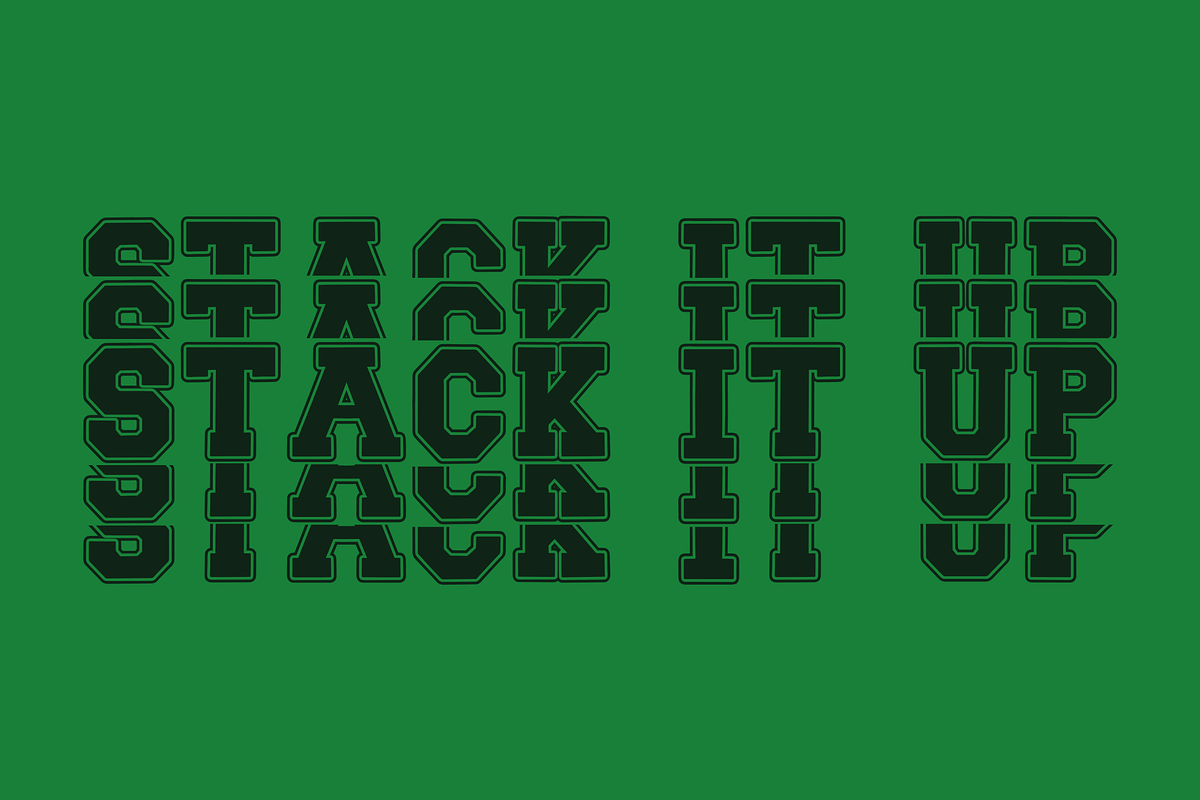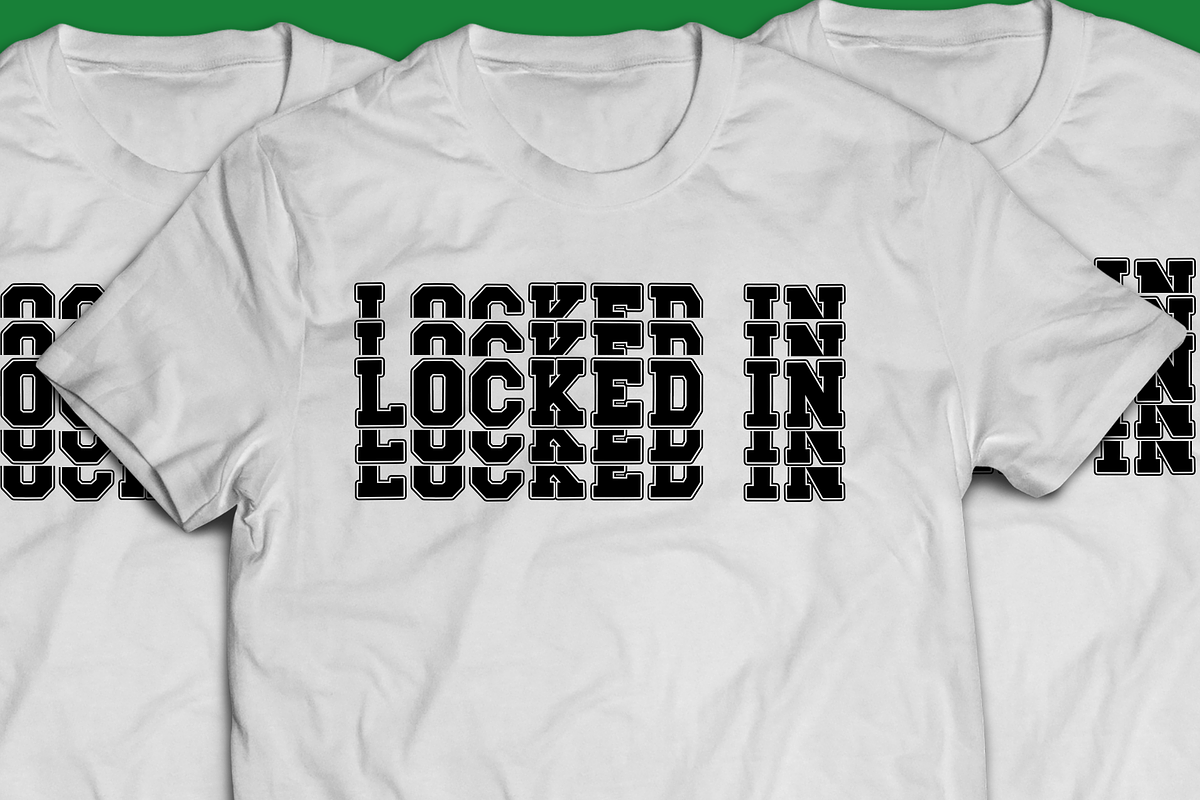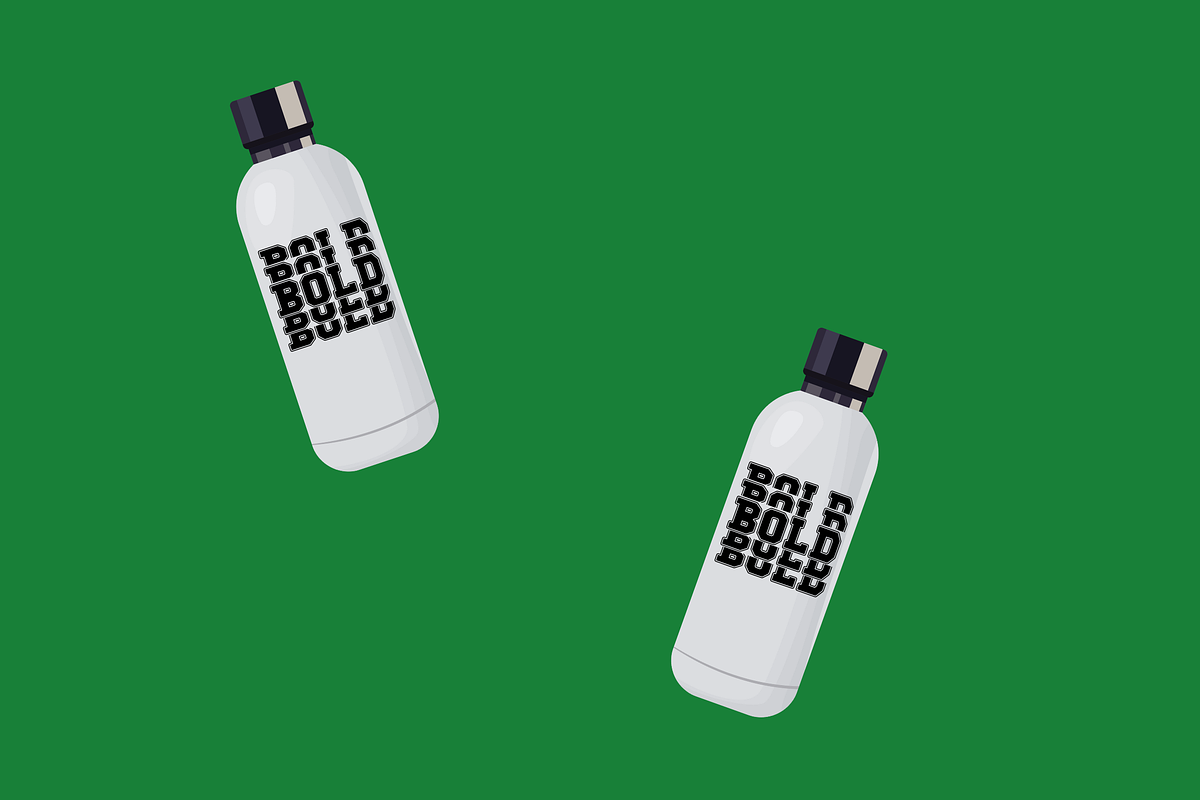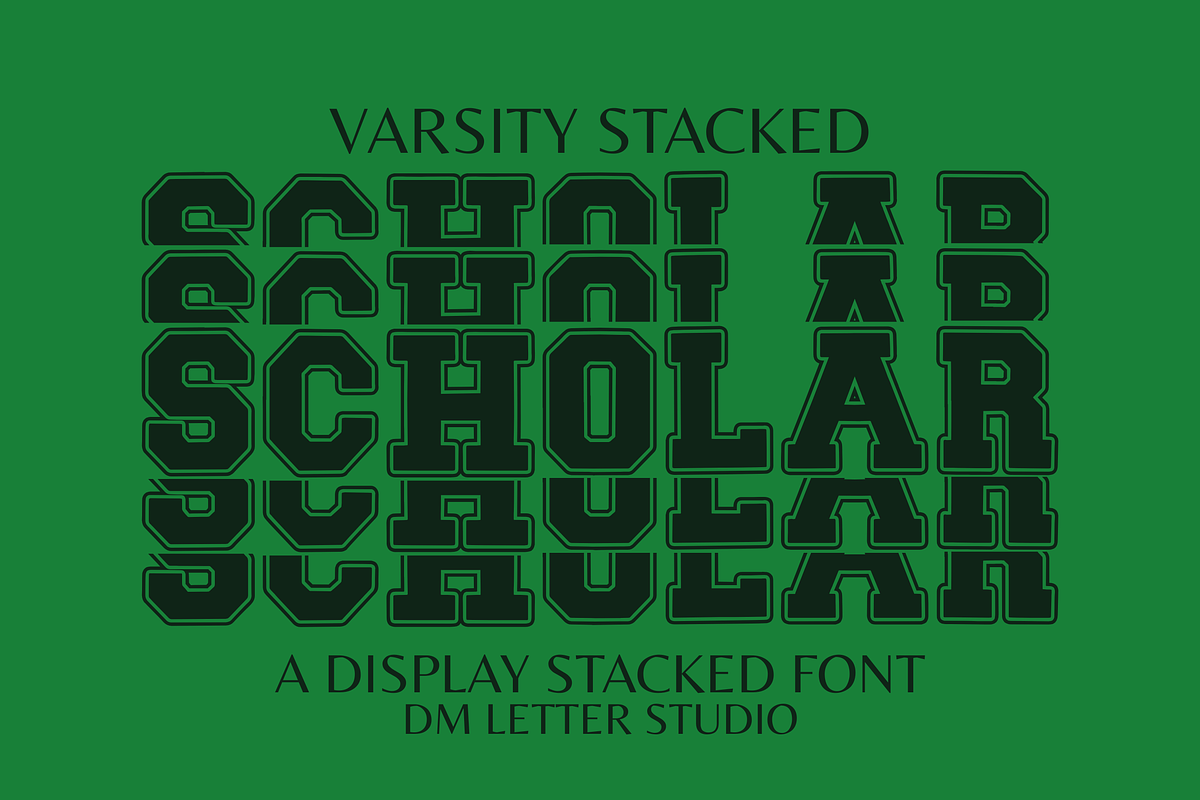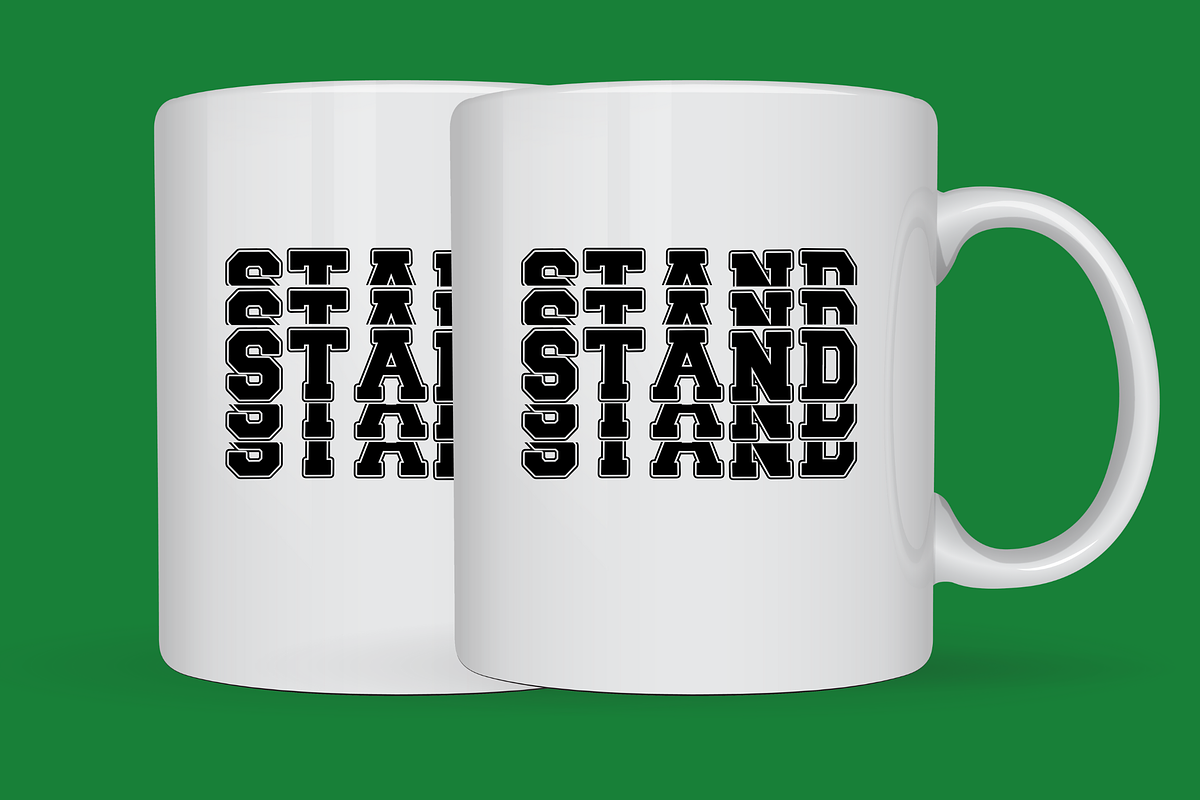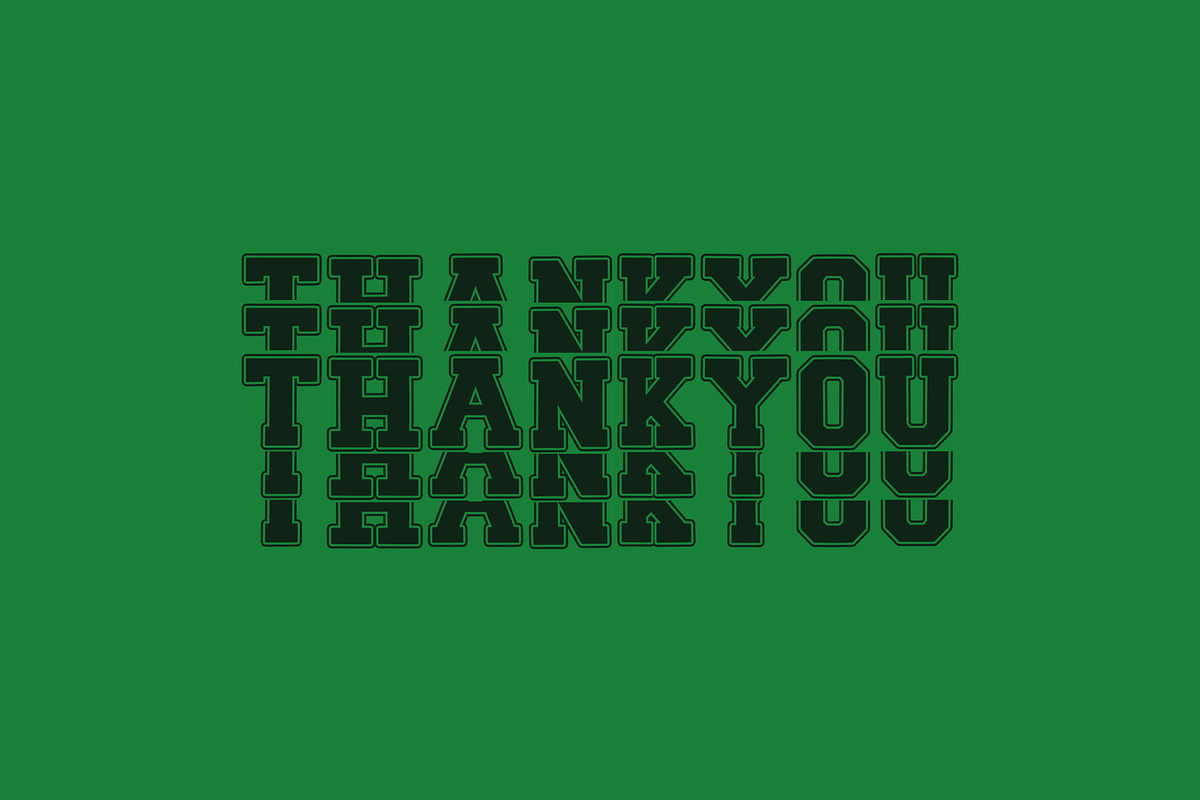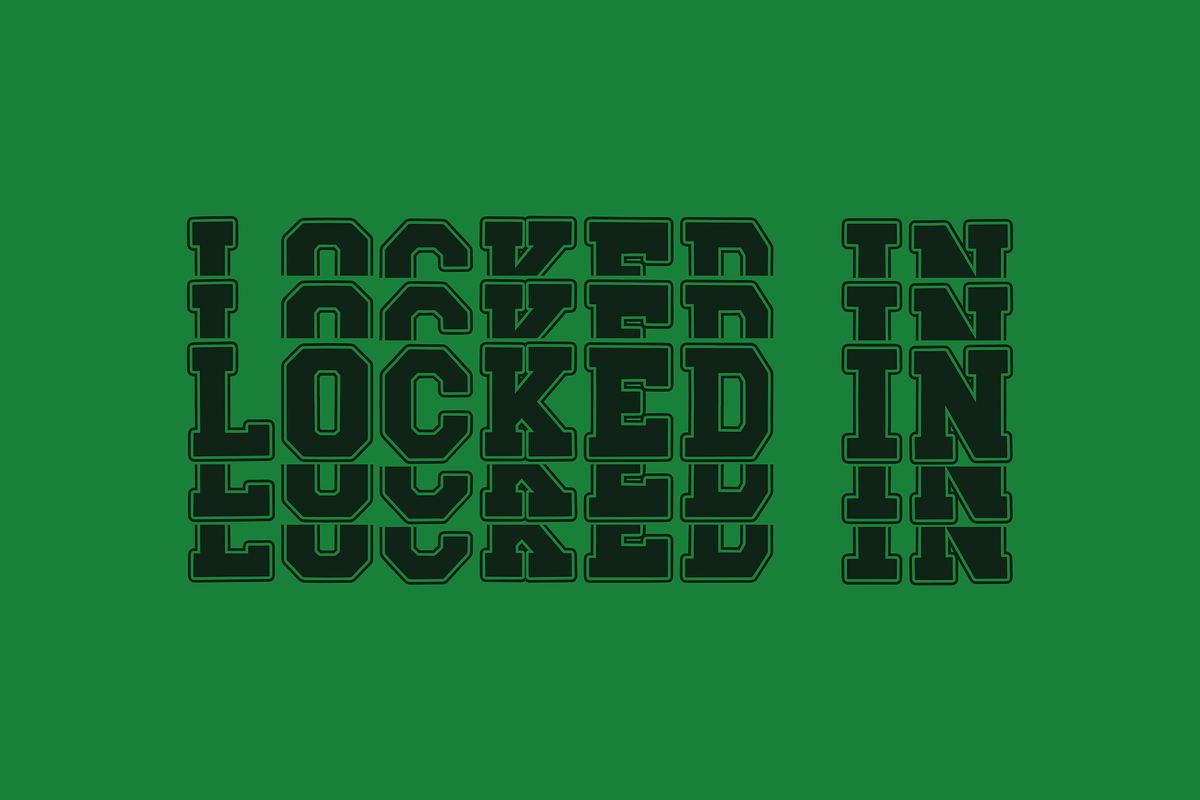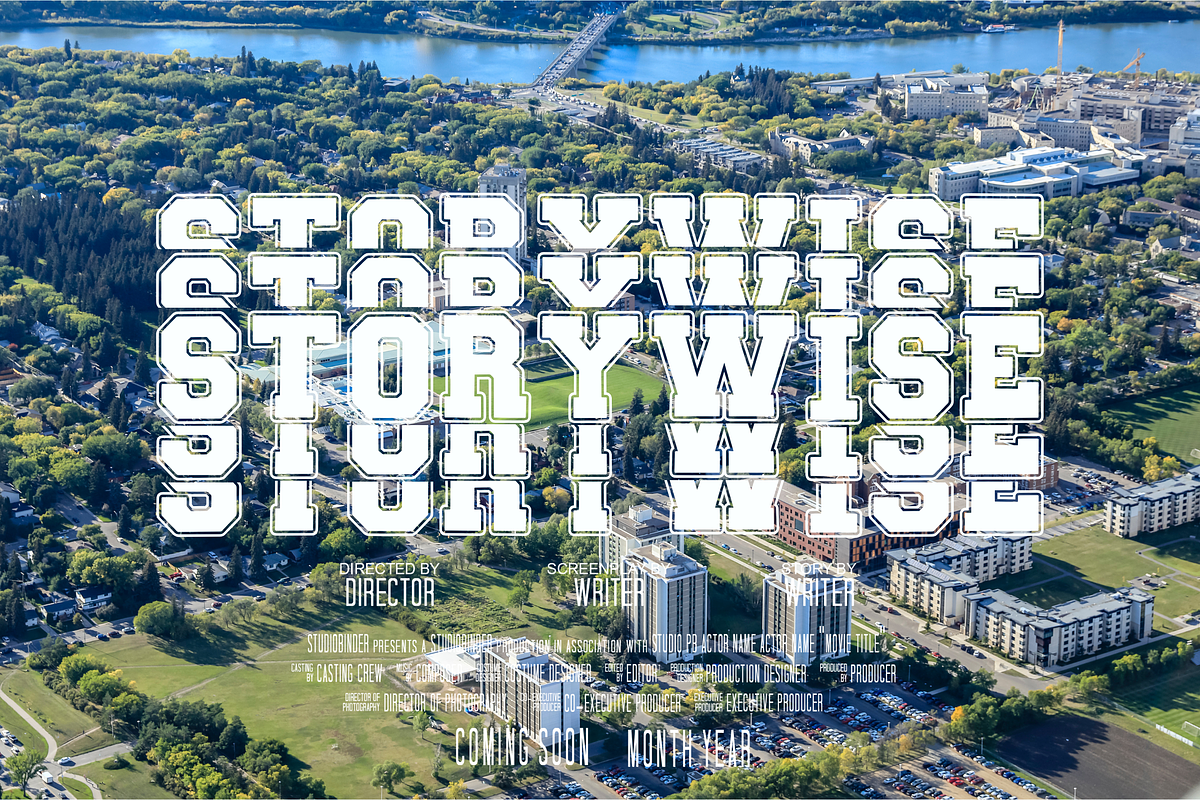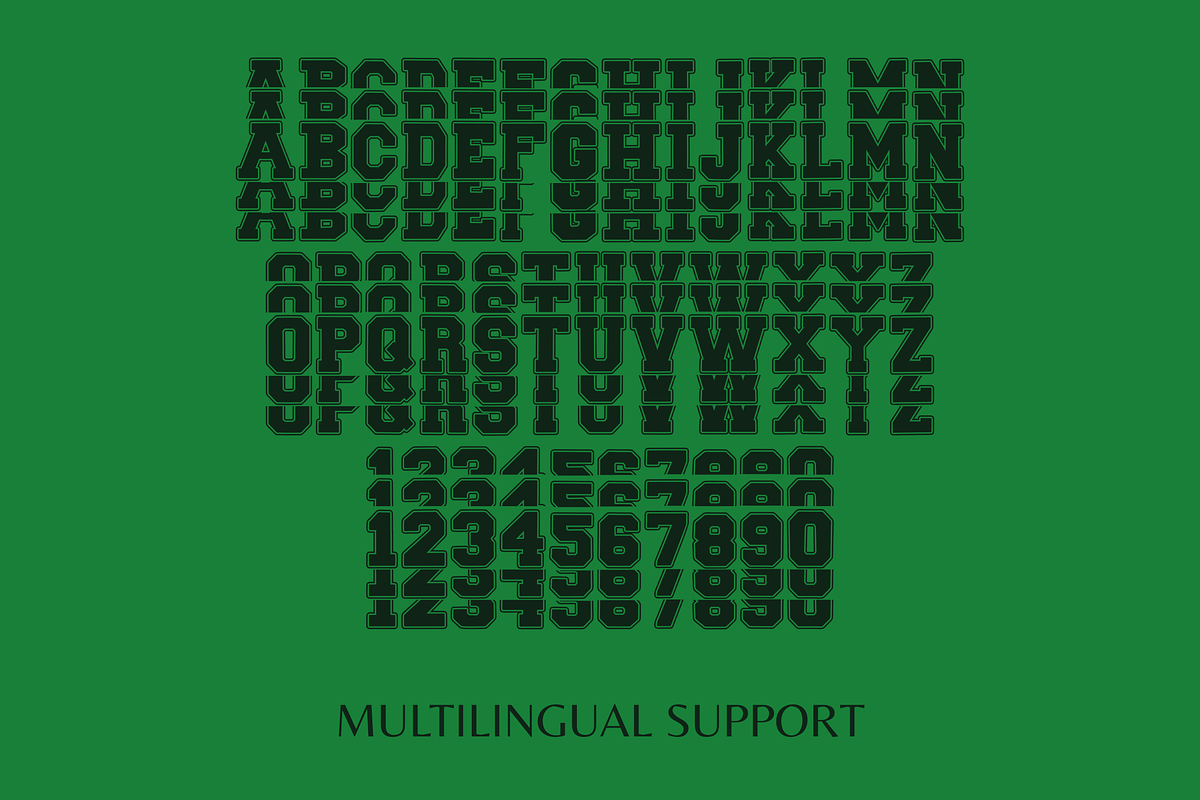
Scholar Varsity Stacked
Scholar Varsity Stacked – Bold All-Caps Stacked Varsity Font for School & Sports Designs
Scholar Varsity Stacked is a bold, high-impact stacked varsity font designed to capture the essence of athletic and academic pride. With its double-layer, vertically stacked layout and clean all-caps style, this typeface delivers structure, confidence, and a punch of personality—making it perfect for school-themed apparel, varsity merchandise, yearbooks, sports posters, or any design that needs a strong presence.
From the very first glance, Scholar Varsity Stacked commands attention. The stacked format gives your text an imposing vertical footprint, allowing for impactful headlines, tight-fitting typographic logos, and compelling layouts that stand out in print and digital projects. Whether you're designing high school graduation shirts, college hoodies, team banners, or TikTok thumbnails, this font brings an iconic varsity aesthetic to the table.
With its structured uppercase characters, Scholar Varsity Stacked brings nostalgia and modern utility together. Inspired by traditional college fonts seen on letterman jackets and athletic wear, it’s optimized for maximum readability and design versatility. This font works beautifully across platforms like Canva, Adobe Illustrator, Cricut, and more, making it a top choice for crafters, designers, and small businesses.
- Stacked All-Caps Varsity Lettering
- Perfect for School, Sports, and Team Branding
- Bold Impact for Shirts, Posters, Social Media, and Logos
- Uppercase A–Z, Numbers, Punctuation, Multilingual Support